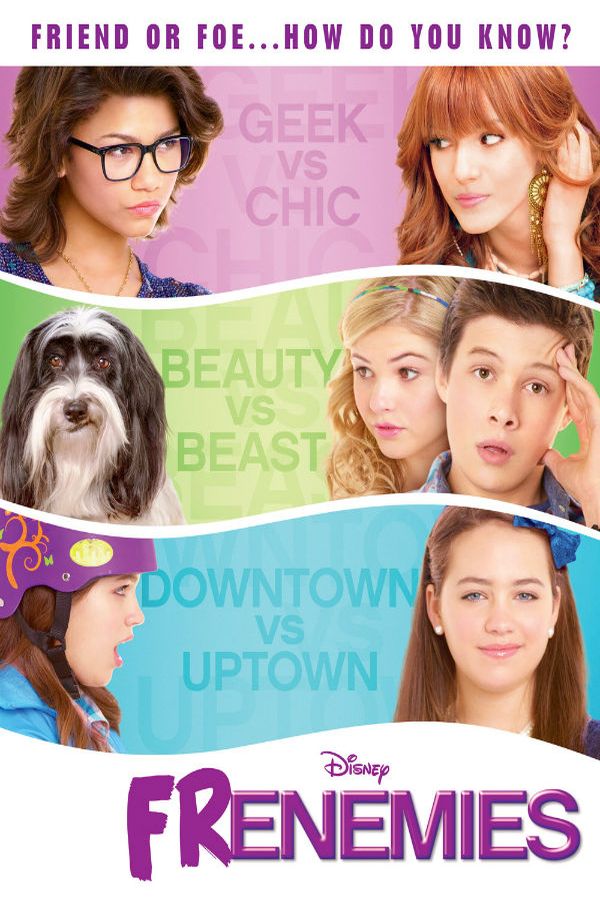
Frenemies Font
DramaFrenemies is a 2012 teen comedy-drama movie that explores the ups and downs of friendship between two best friends who become rivals when they both want the same designer accessory.
On the movie poster, two different font styles were utilized for the title. The "FR" part is written using House Paint, a brush font, while "ENEMIES" was written in a sans serif font Chalet New York 1960.